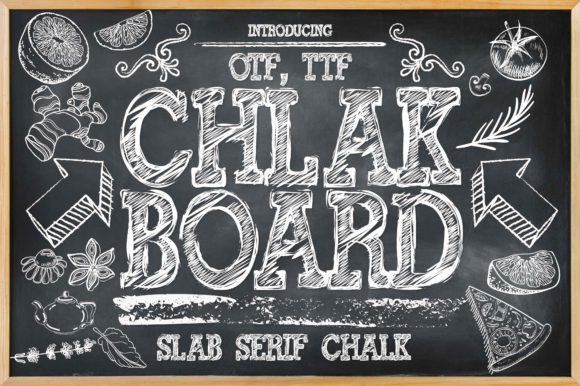
Welcome to the world of Chalkboard Font, the best font family for school projects and beyond! Created by the talented designers at Minimalistartstudio, Chalkboard is a cute and eye-catching font that is perfect for headings and titles.
With its slab serif aspects, Chalkboard Font is a perfect blend of modern and vintage design, making it a versatile choice for a wide range of themes and styles. Whether you're working on a school project, designing a menu for an Italian restaurant, creating a social media post for your vegan products, or just need a unique sketchy effect for your web design, Chalkboard Font is the perfect solution.
This font is a perfect choice for school-related projects, as it has a playful and whimsical feel that captures the attention of both students and teachers alike. Its clean lines and bold characters make it easy to read, even from a distance, which is why it is considered one of the best fonts for school.
Chalkboard Font is not just limited to school projects, however. Its unique design also makes it a great choice for a variety of other uses, such as posters, social media posts, YouTube channels, and more. With its creative and unique style, Chalkboard Font is sure to capture the attention of your audience and make your message stand out.